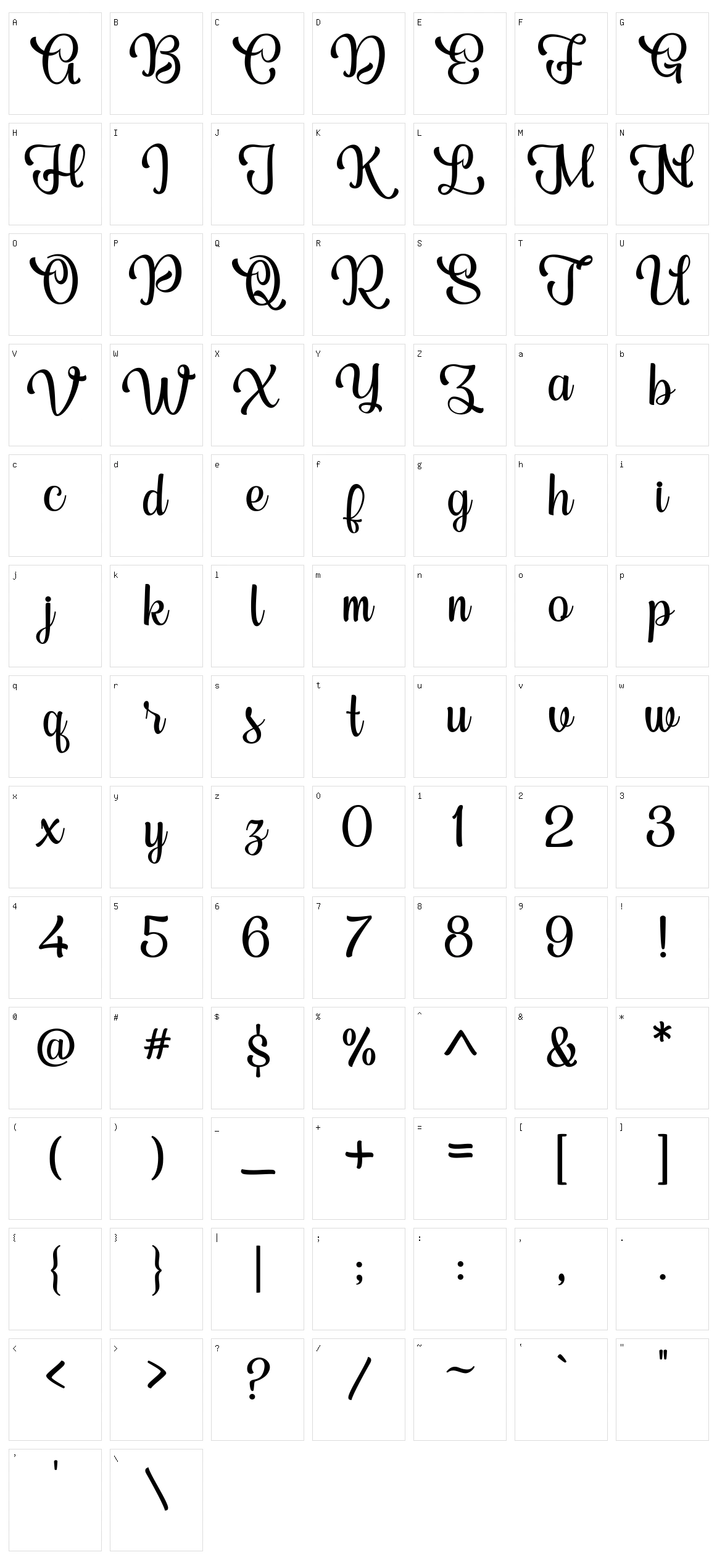
The free font Bedfore Script is carefully designed by Lettersams, showcasing a thoughtful balance of creativity and usability and falls under the Script font style. When you download the ZIP file, it contains only 42.41 KB of font files, making it lightweight and quick to download. Please review the license details below to understand permitted usage and distribution rights. If license information is not available, we recommend using this font for personal projects only or contacting the author directly for commercial usage permissions.